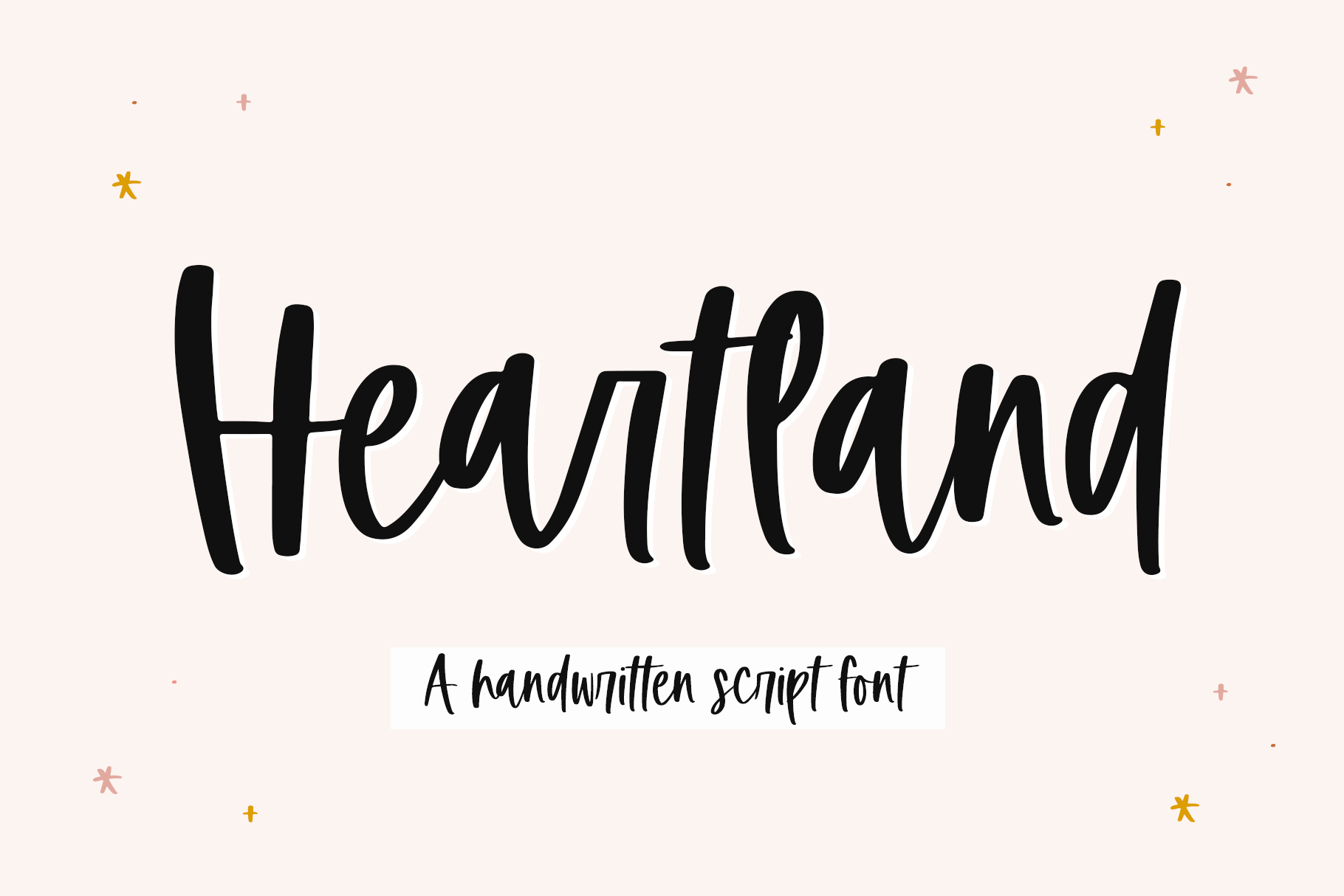
Heartland | Handwritten Script Font
Heartland is a bouncy handwritten font.
This font is perfect for logos, branding, svg designs, crafters, social media and more!
Most accent letters included.